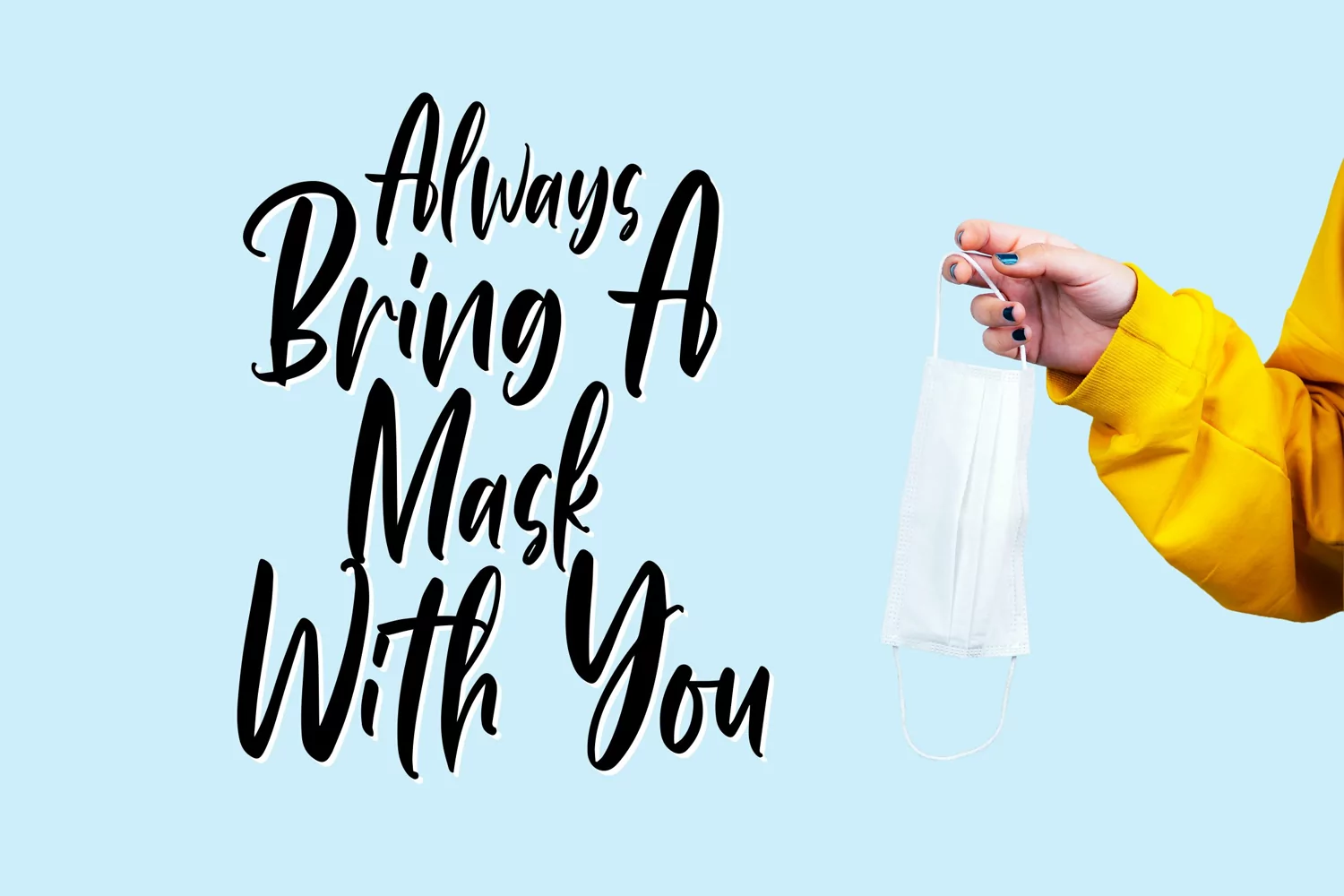
Duck Bill - Beauty Brush Lettered Font that contain lowercase, uppercase, symbol, and also support multi language. There’s a lot ligatures in this font. This Font also comes with ligatures, alternates and many more. this font suitable for fashion, branding, catalog and other design what you want.
Duck Bill